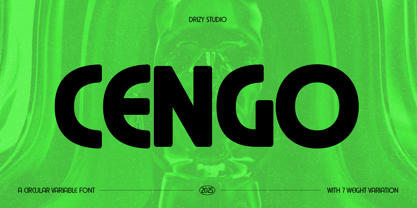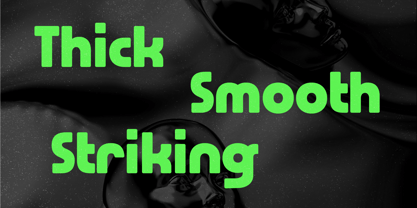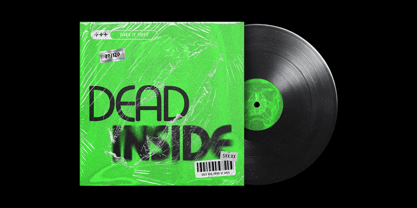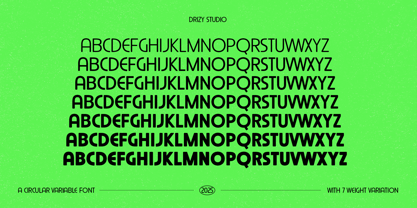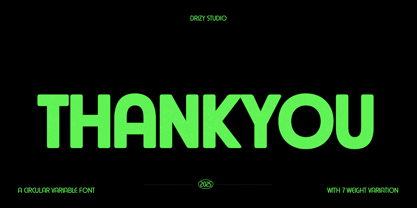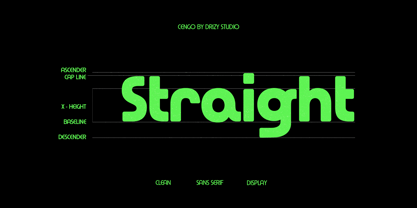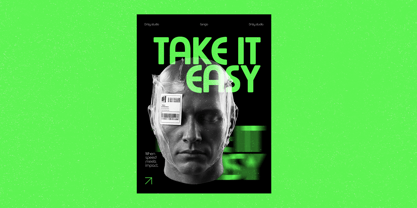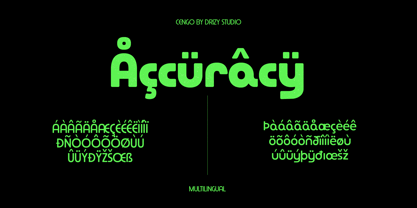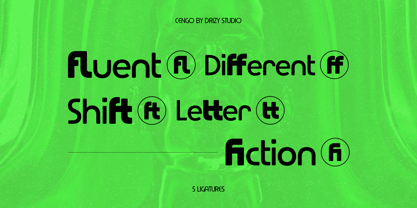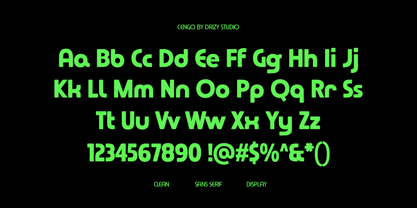
Cengo
by Drizy Font
The Cengo Font Family was designed by Panca Ahmadi Hasan and published by Drizy Font. Cengo contains 7 styles and family package options. More about this family
Cengo – Circular Sans Variable Font
Cengo – Circular Sans Variable Font is a modern and versatile typeface designed with clean, geometric curves in the style of a Circular Sans. Fully variable in weight, Cengo allows seamless transitions from thin to bold, making it perfect for everything from minimalist branding to bold headlines. Its sleek and friendly character brings clarity and flexibility to any design project.
Cengo – Circular Sans Variable Font features:
• Uppercase & Lowercase
• Punctuation & Numbers
• Multilingual
• Ligatures
• 7 Variable of Weights
Designers: Panca Ahmadi Hasan
Foundry: Drizy Font